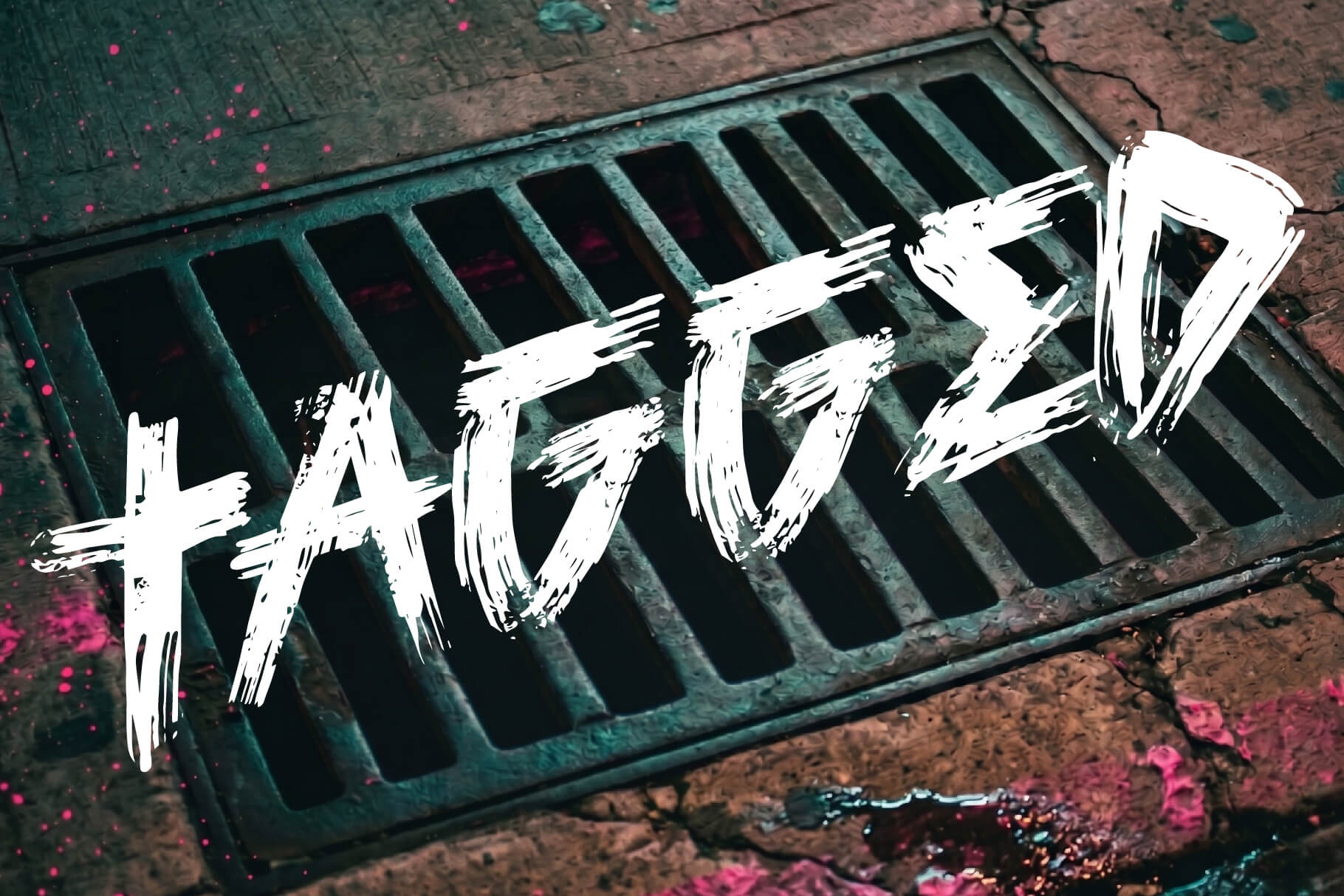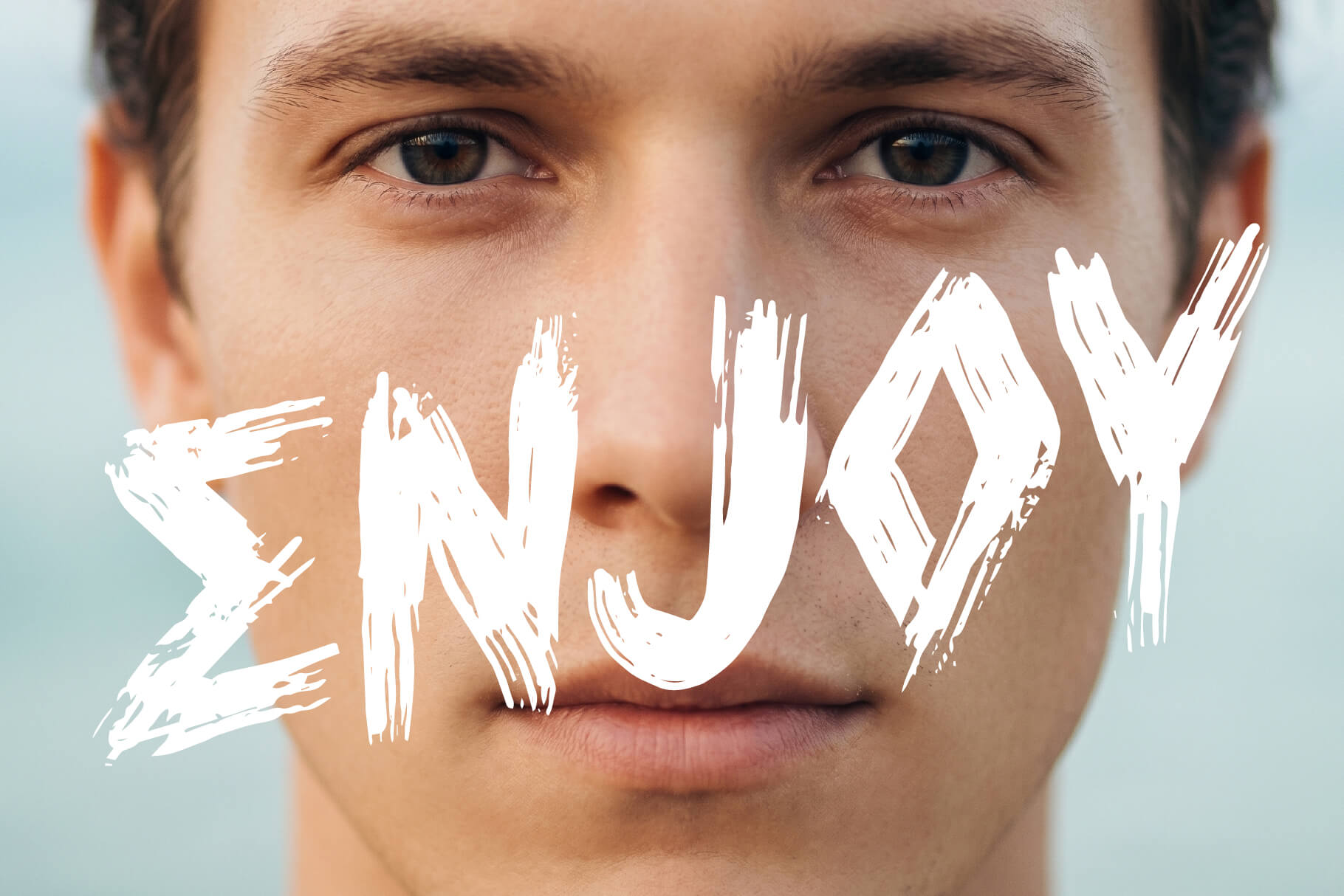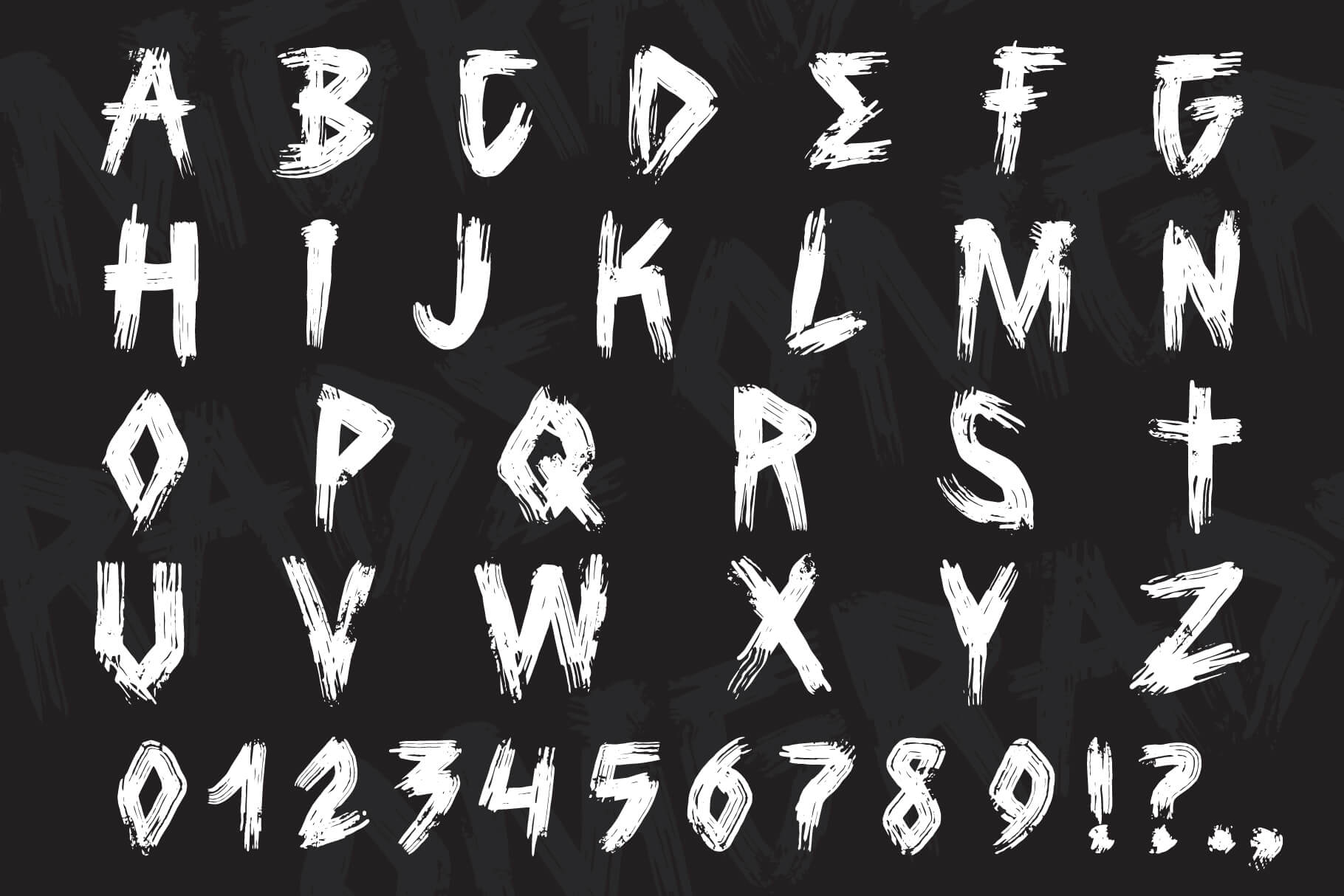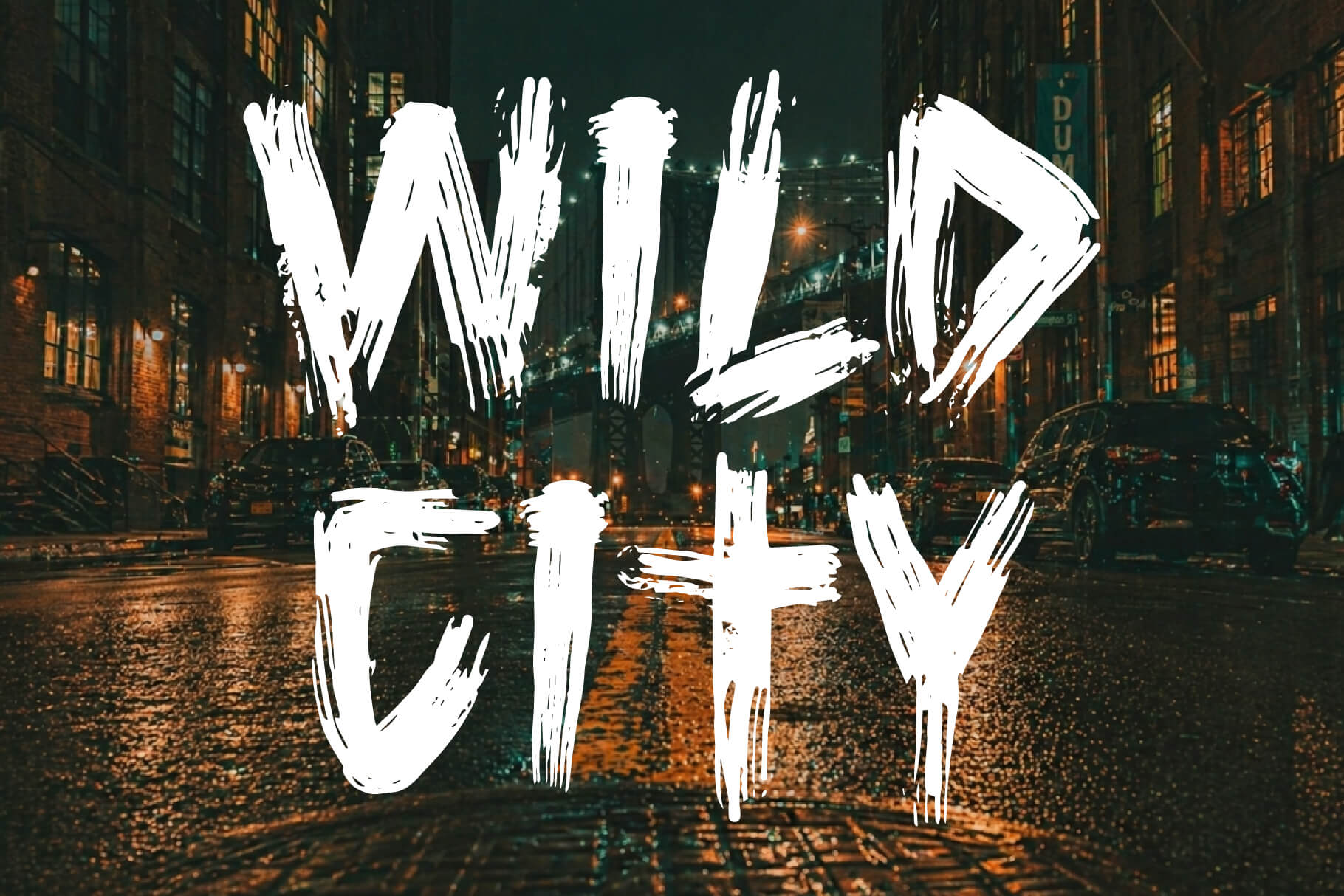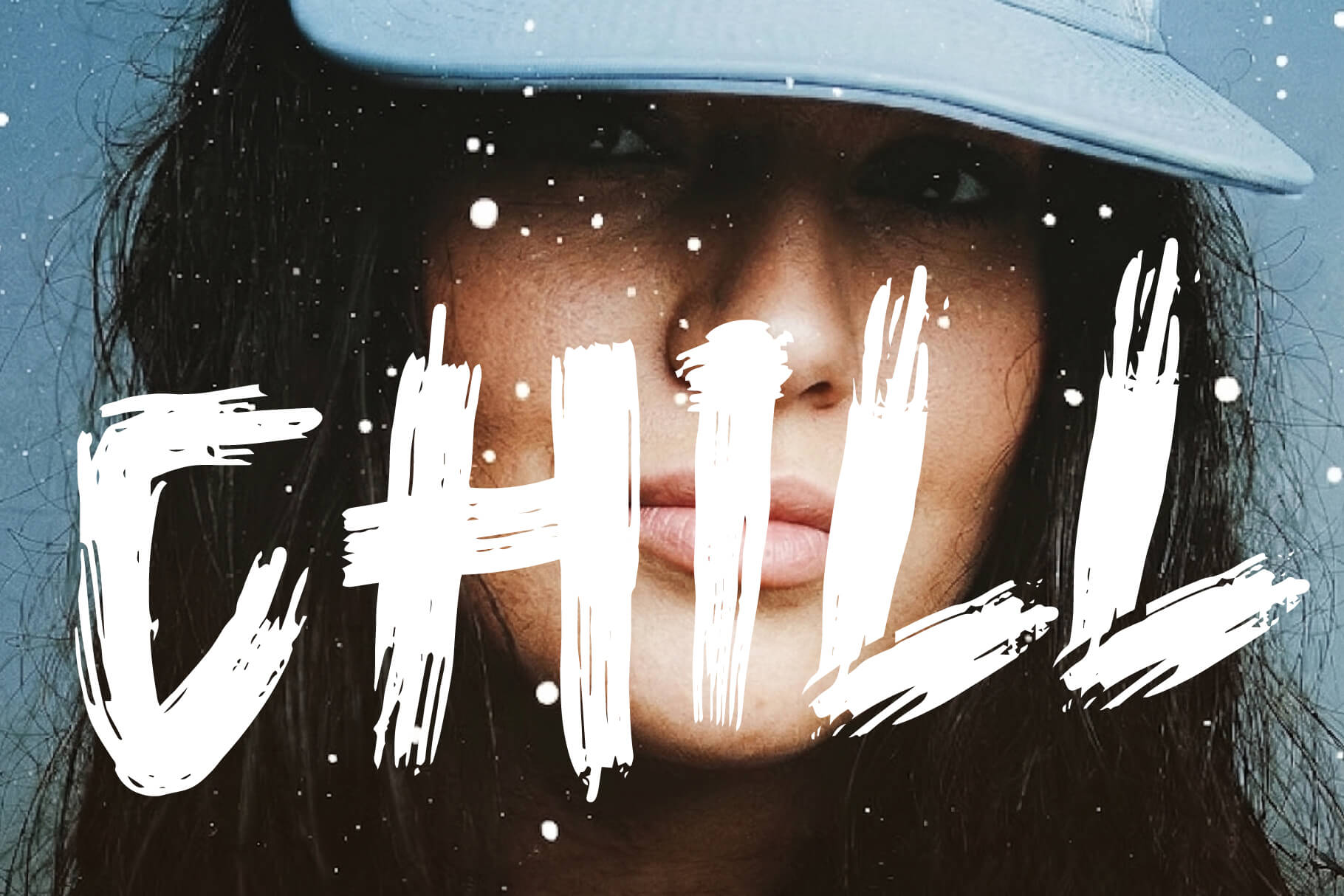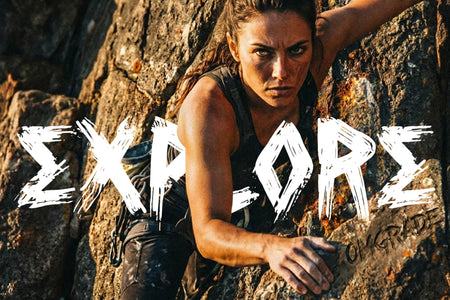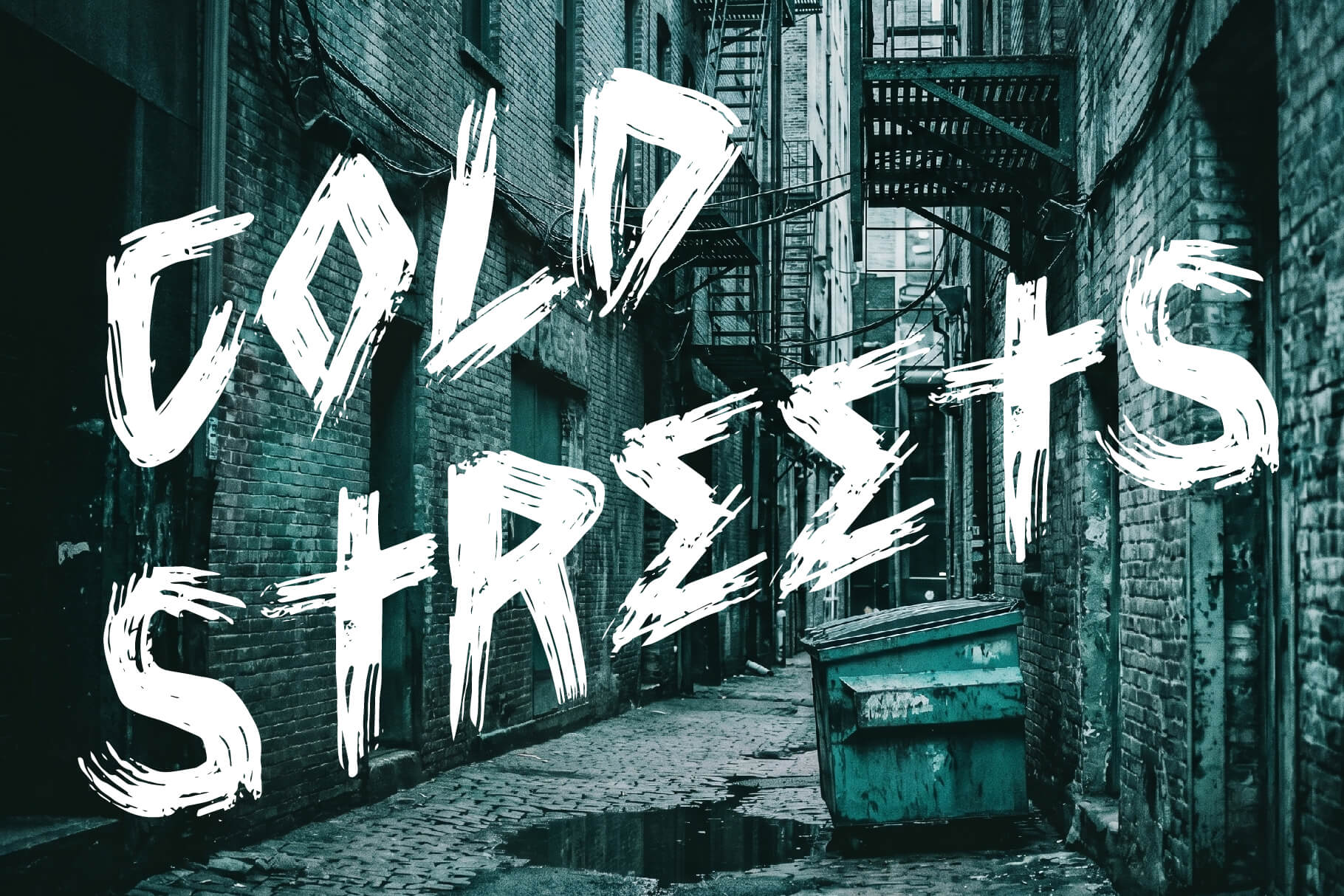
OMGRADE display font
OMGRADE is a futuristic techno display typeface with a bold, high-tech character.
Its precise, engineered letterforms and sci-fi styling give designs a modern, digital edge while staying strong and legible at large sizes.
It brings a confident, next-level feel to anything tech, gaming or future-facing.
OMGRADE works especially well for gaming and esports branding, tech products, posters and bold headlines.
IDEAL FOR
– Gaming and esports branding
– Tech and app products
– Posters and covers
– Logos and headlines
– Social media visuals